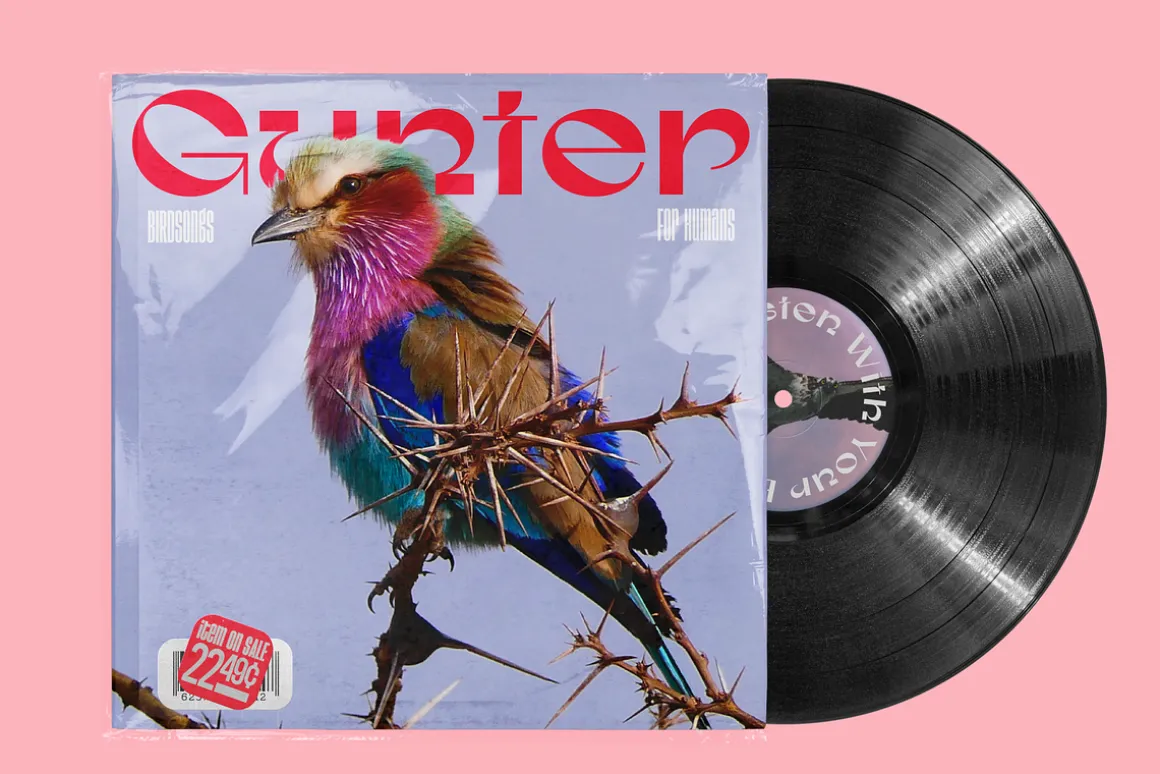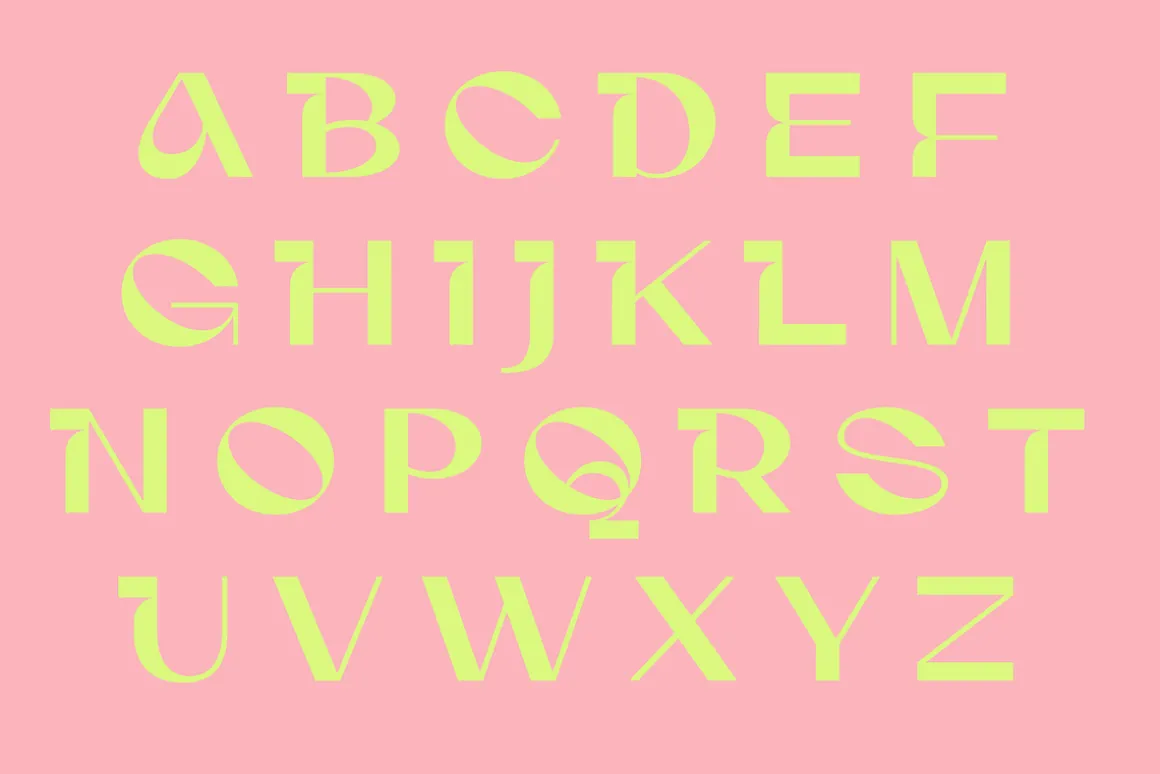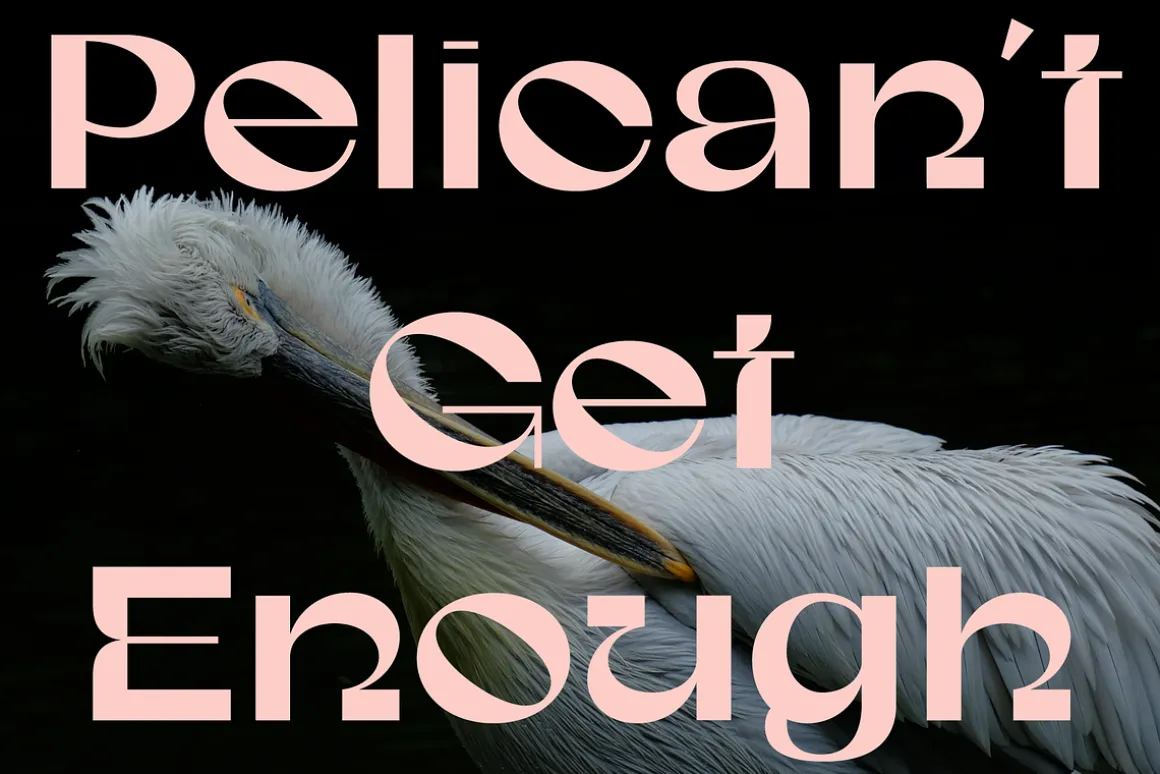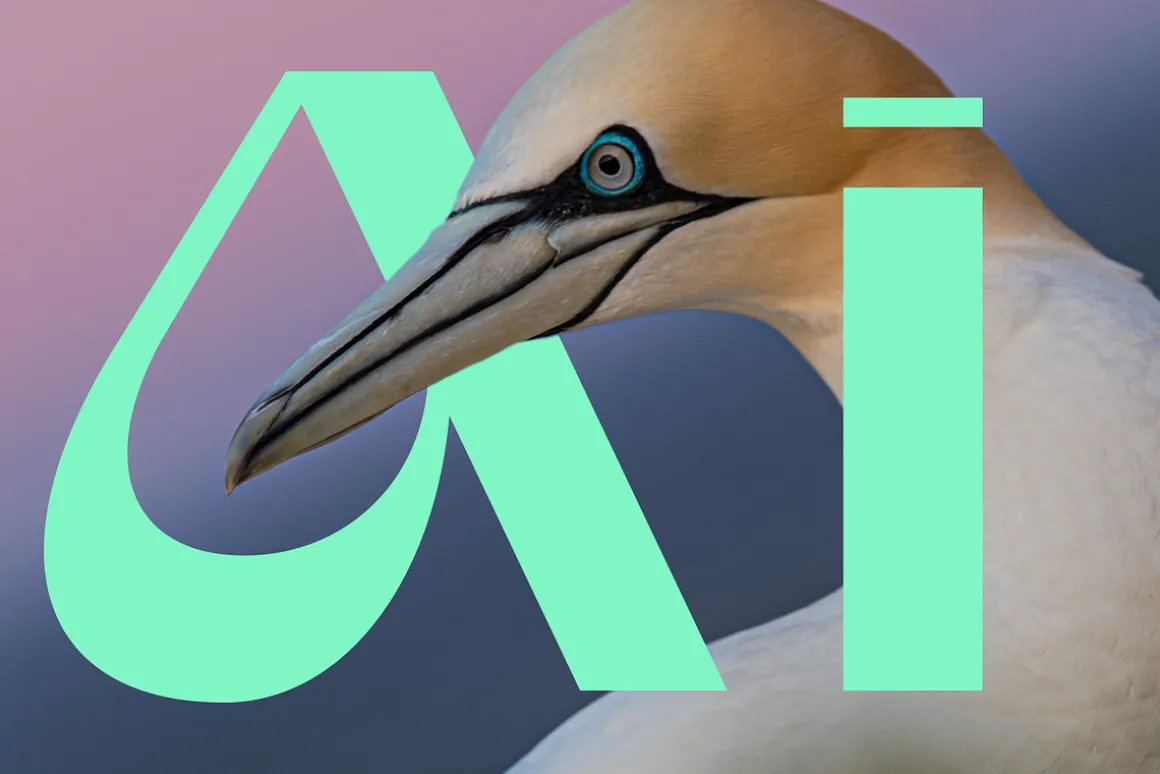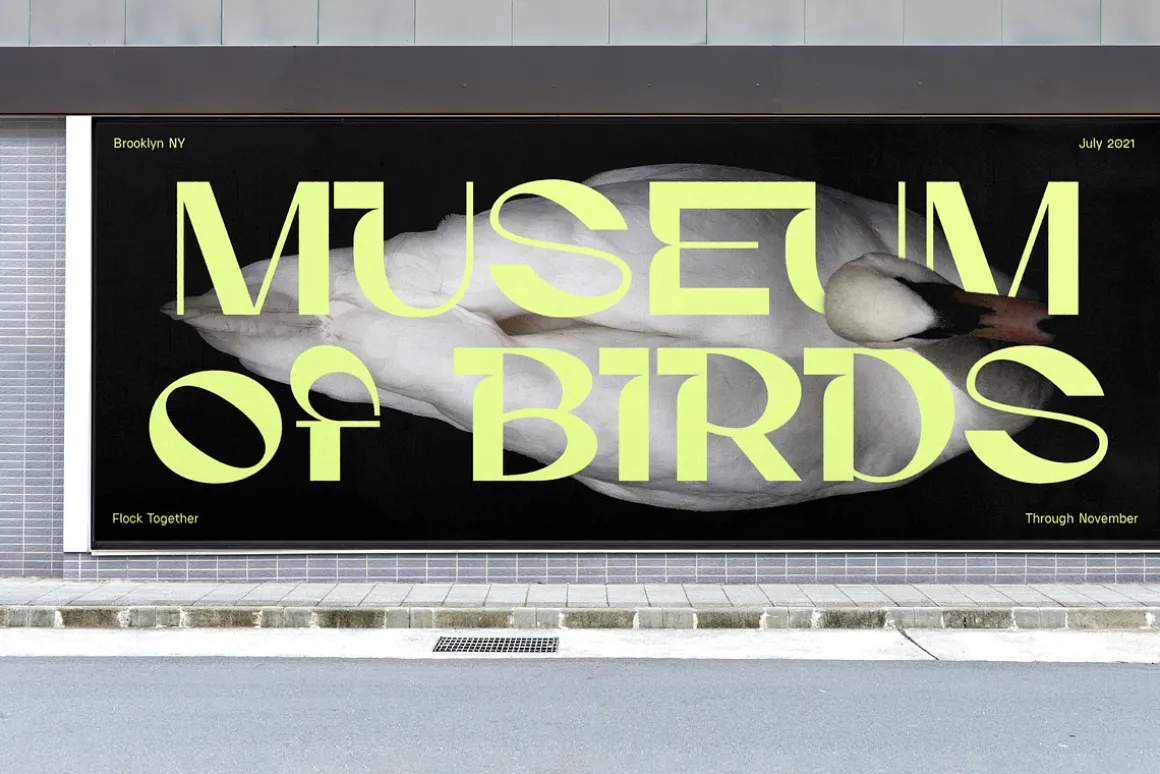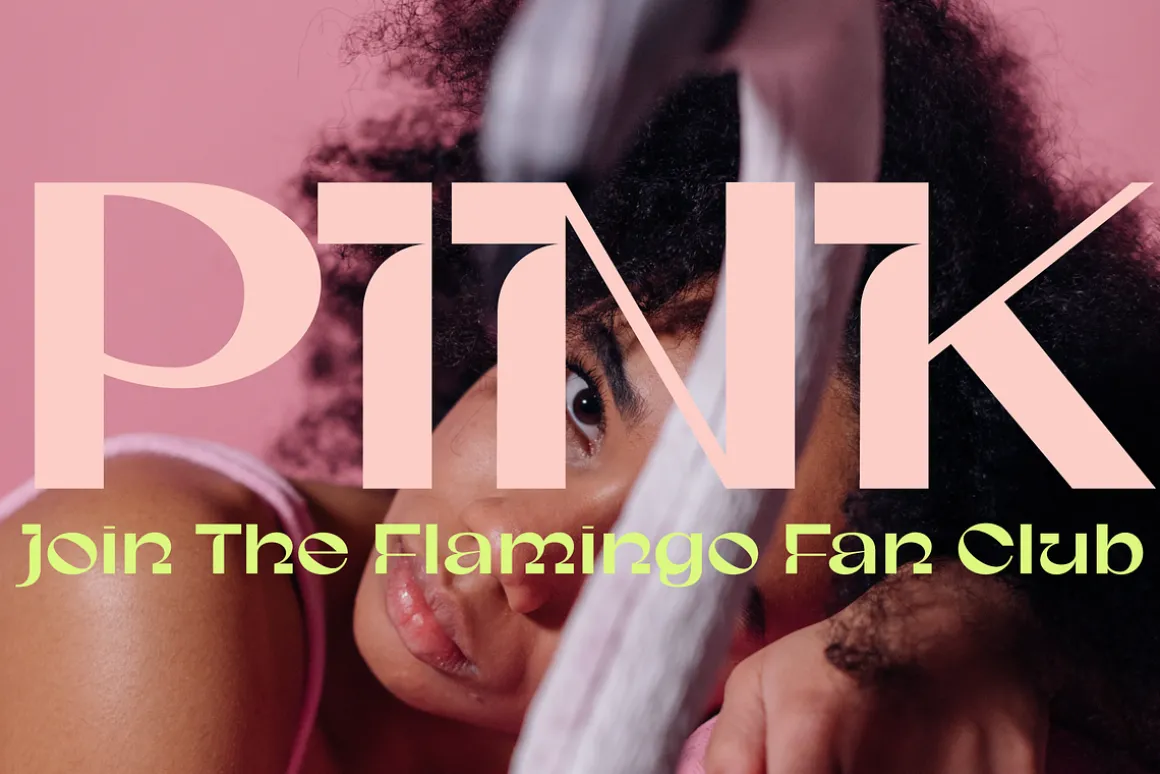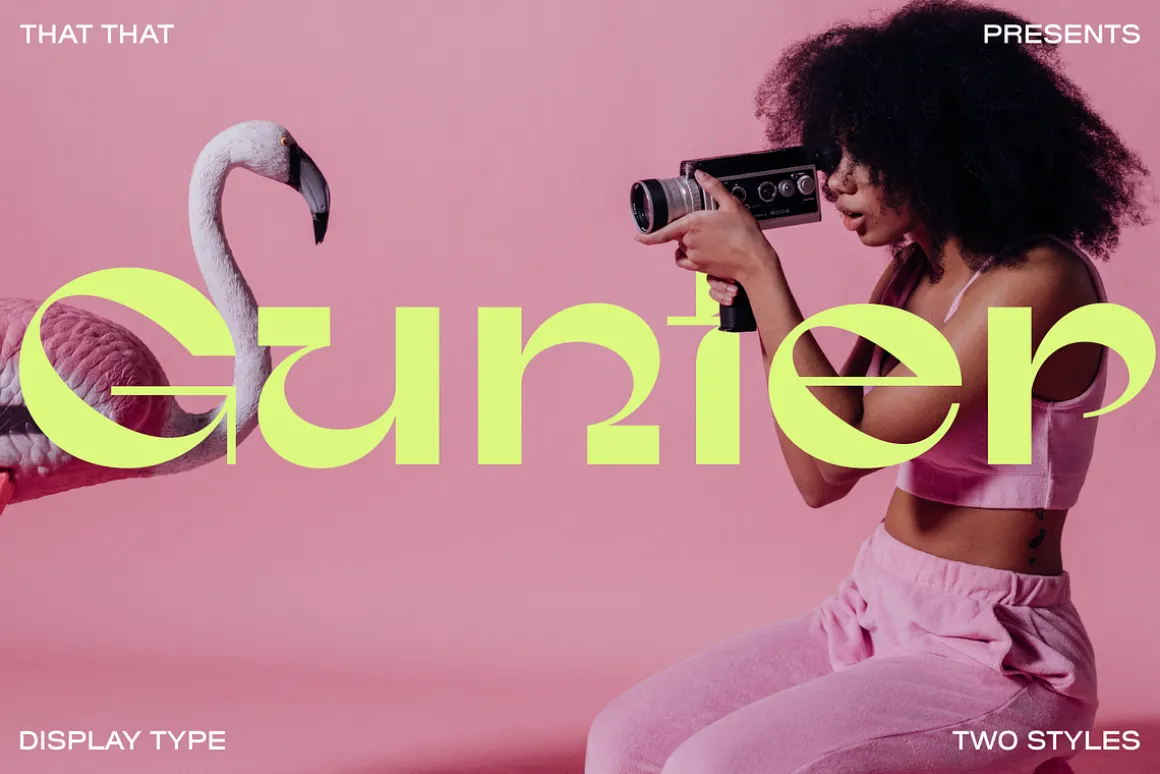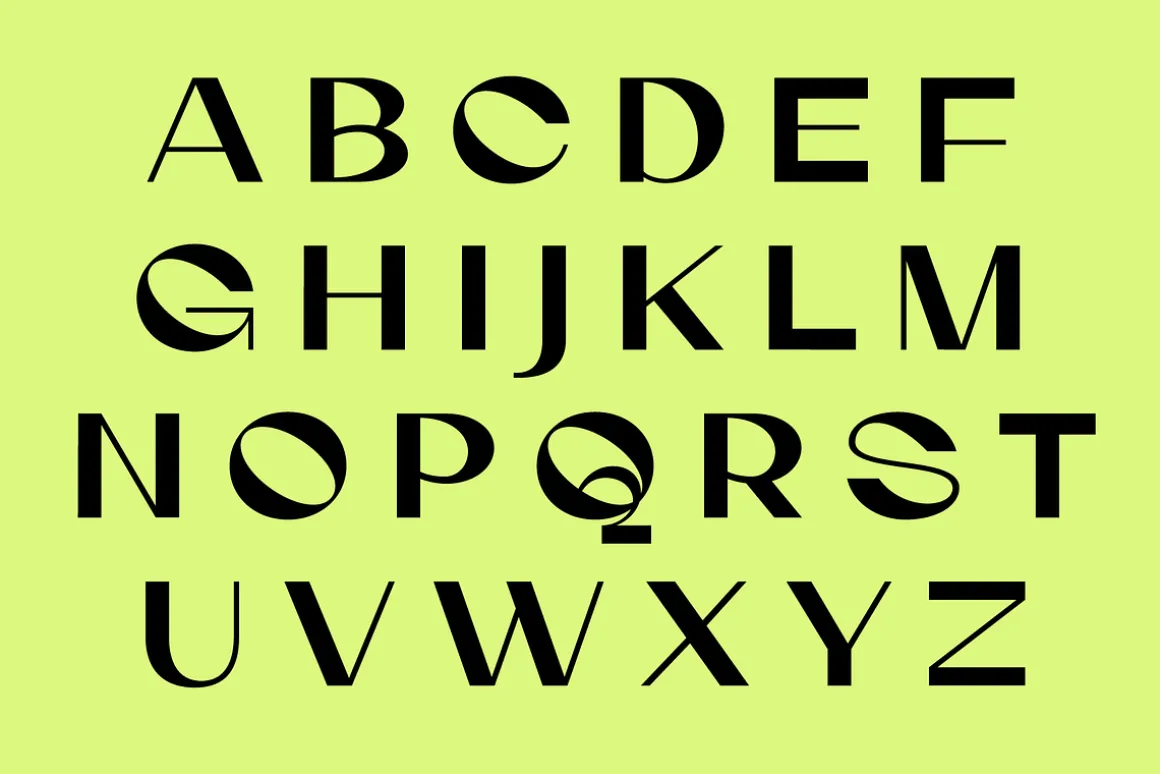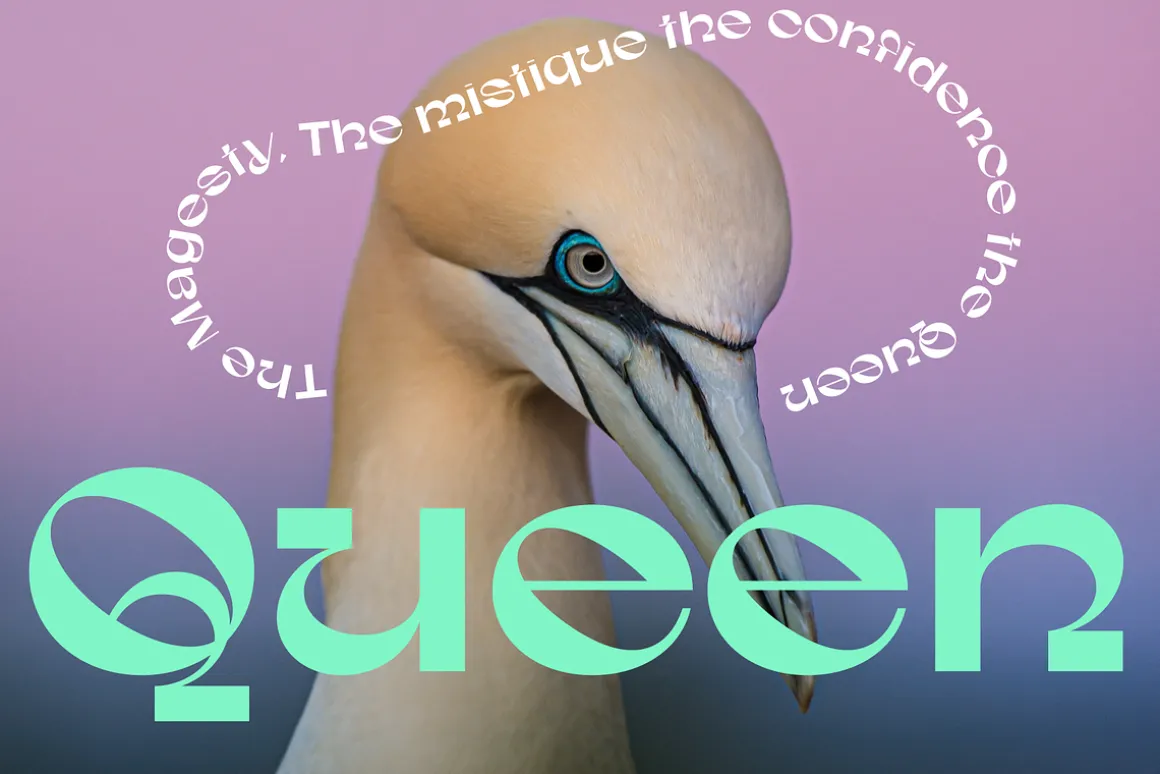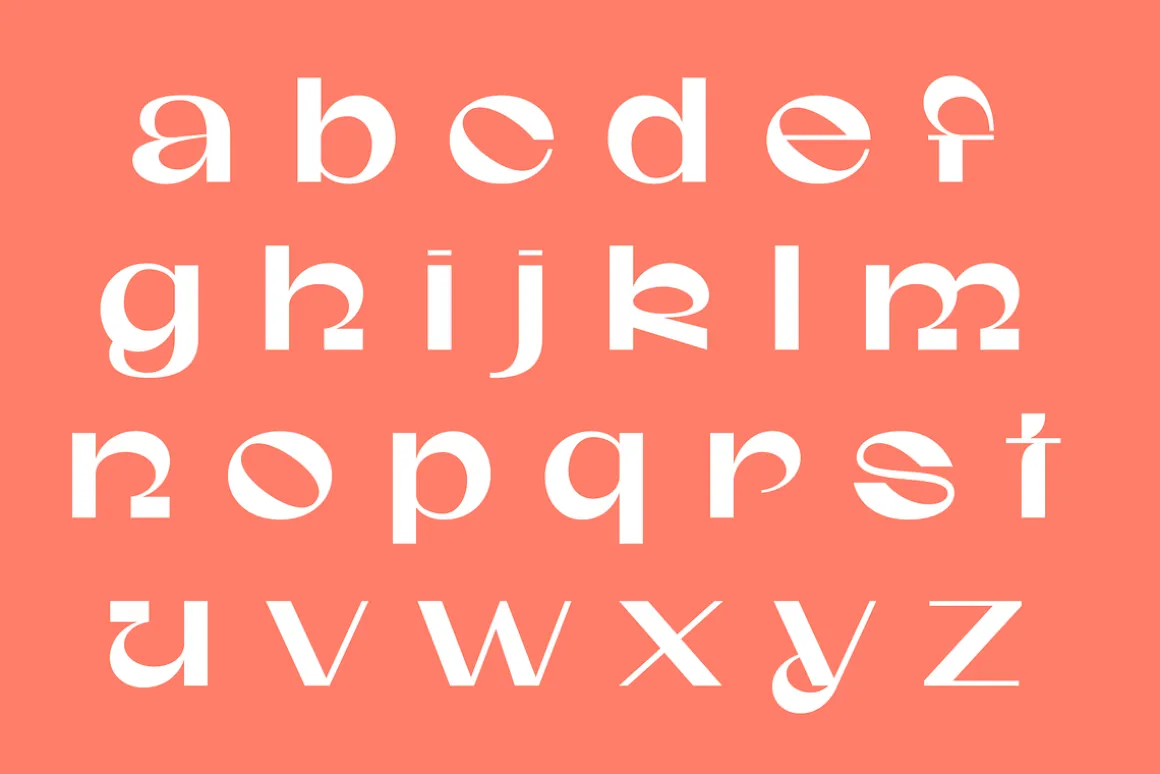
Gunter is a bold modern quirky half serif half sans serif display font that is in a category all on its own.it has a super-strong grounded horizontal present with playful cuts and loops inspired by 60’s and 70’s design. It was designed with Social Media in mind as it is sure to stand out. It comes with an alternate style set with more traditional caps if you don’t want to get too crazy.
- 2 Styles with alternative caps
- Caps and Lowercase